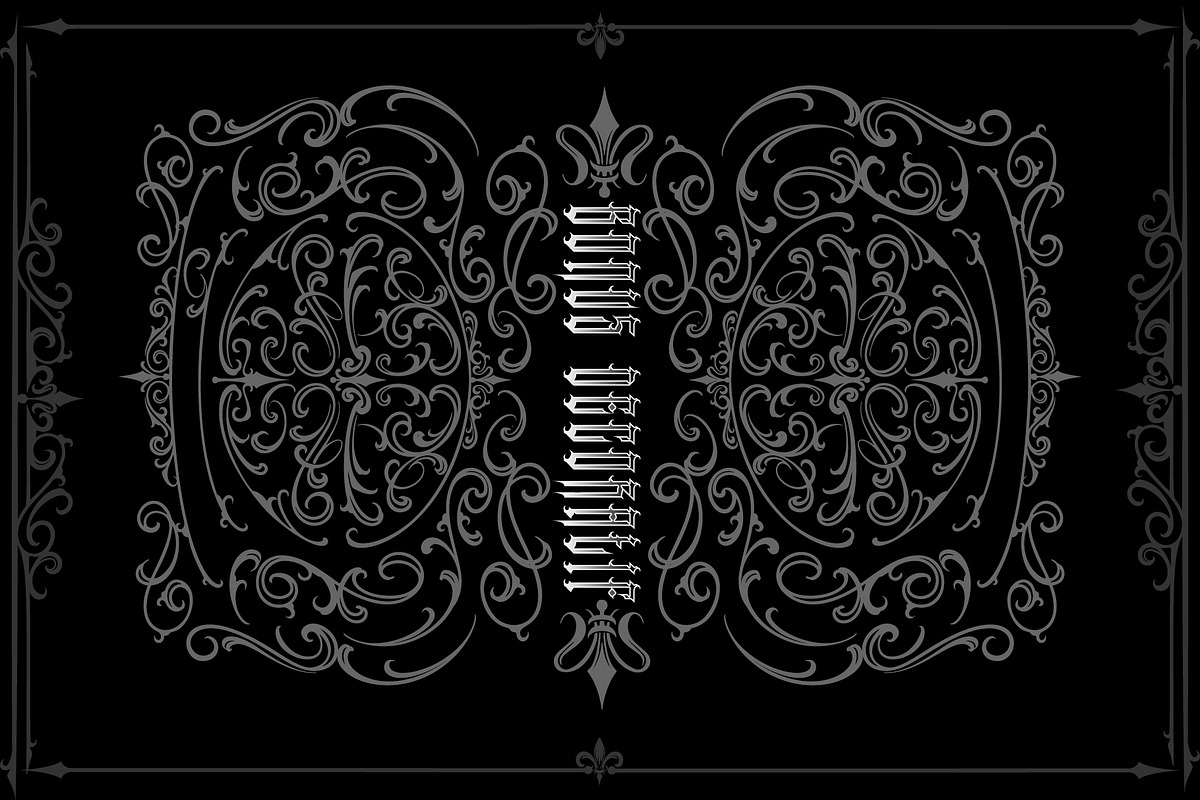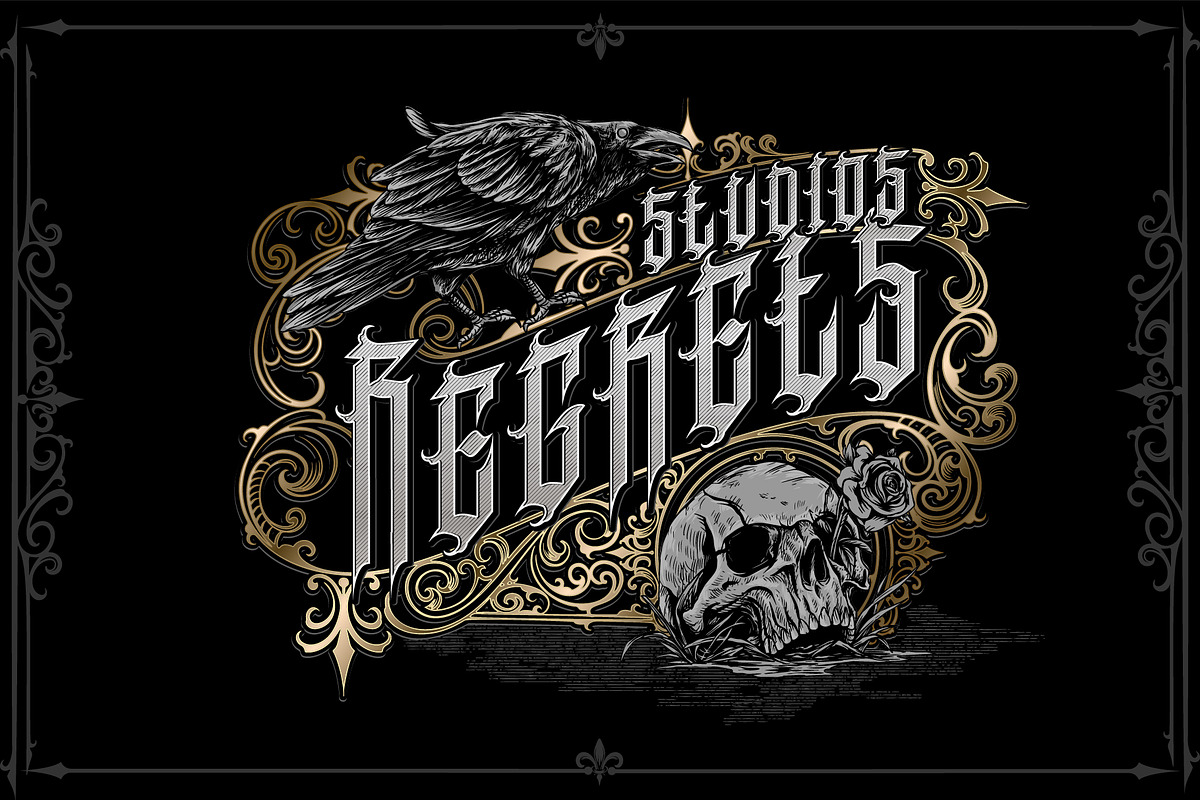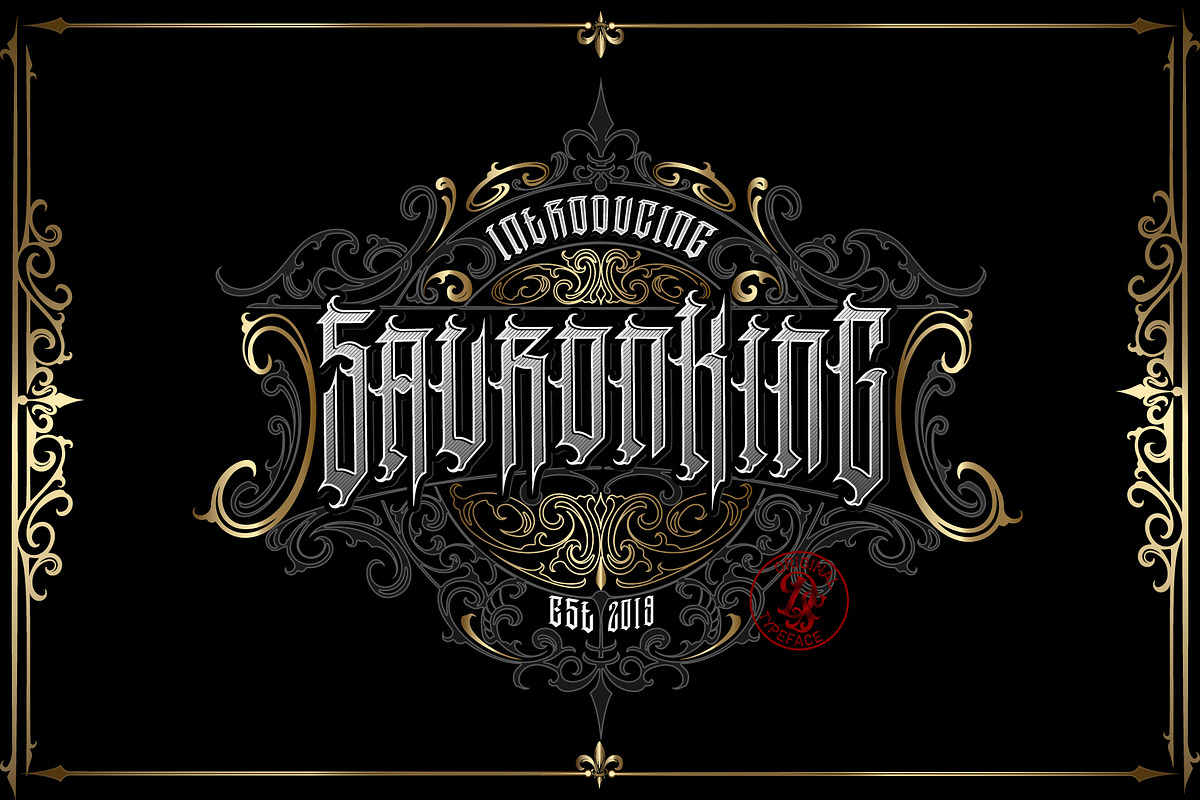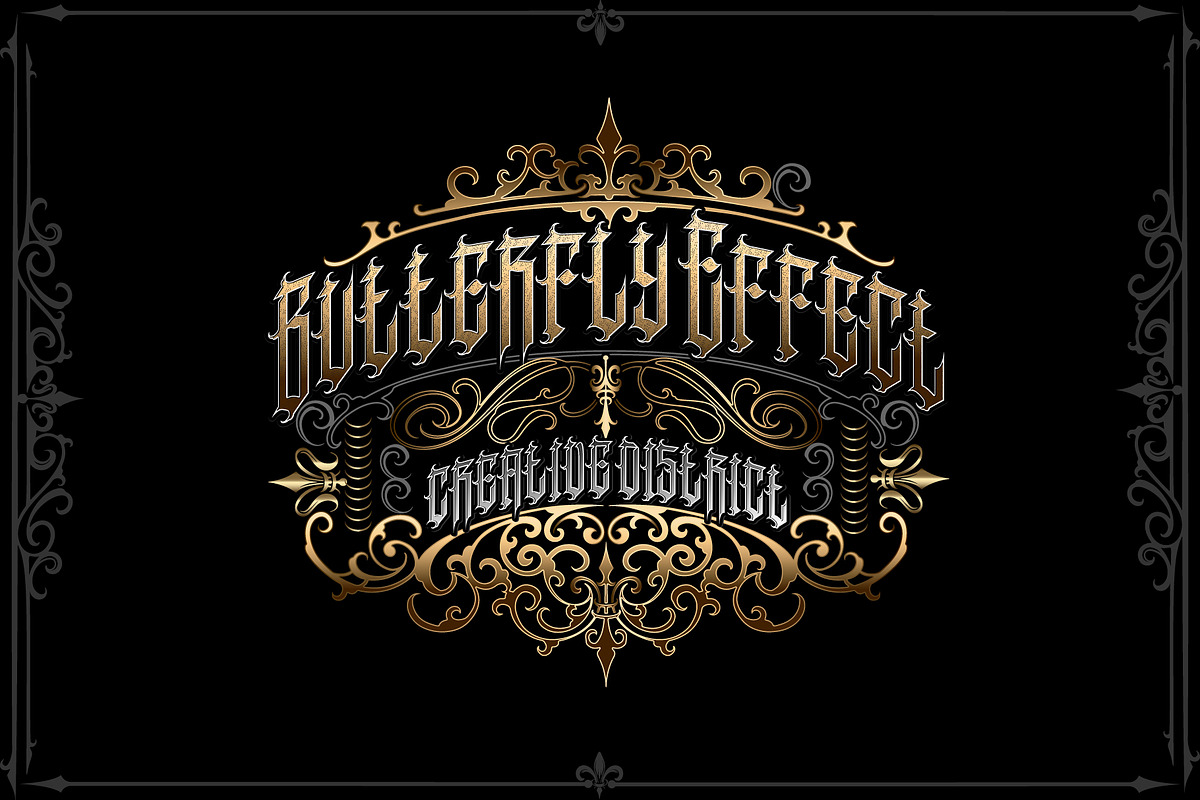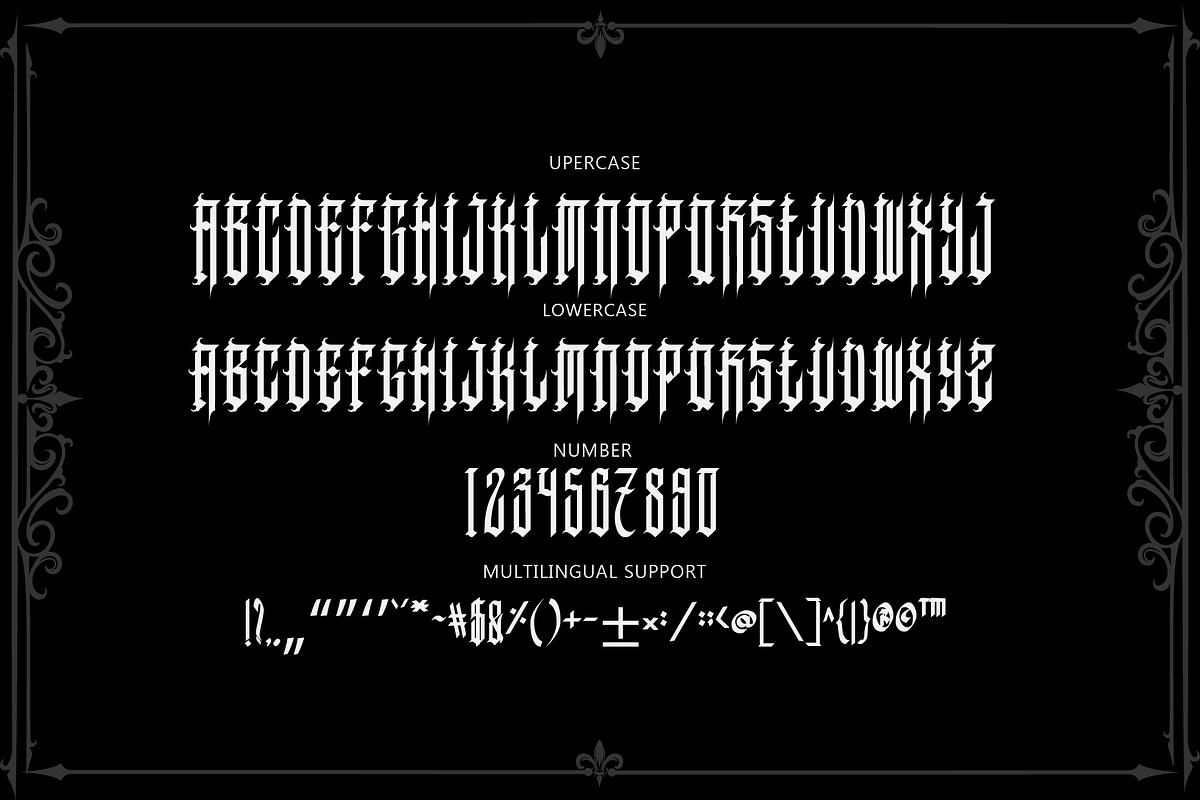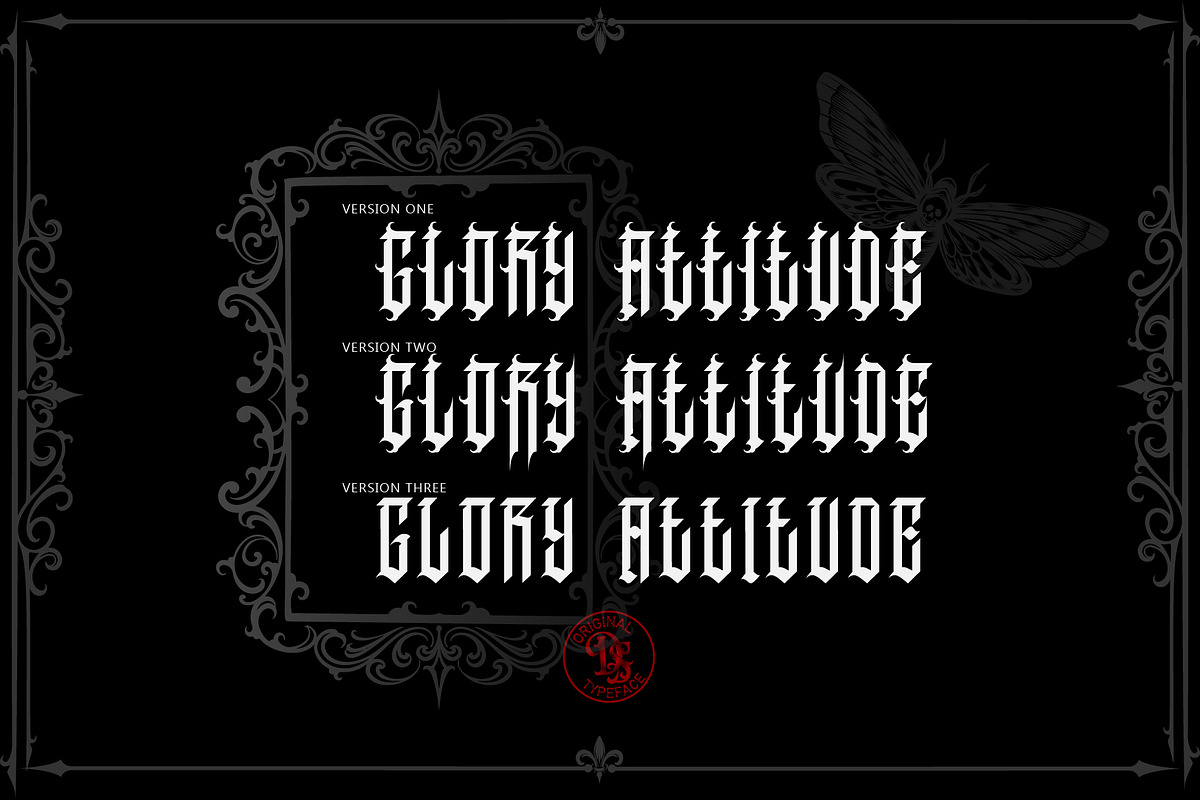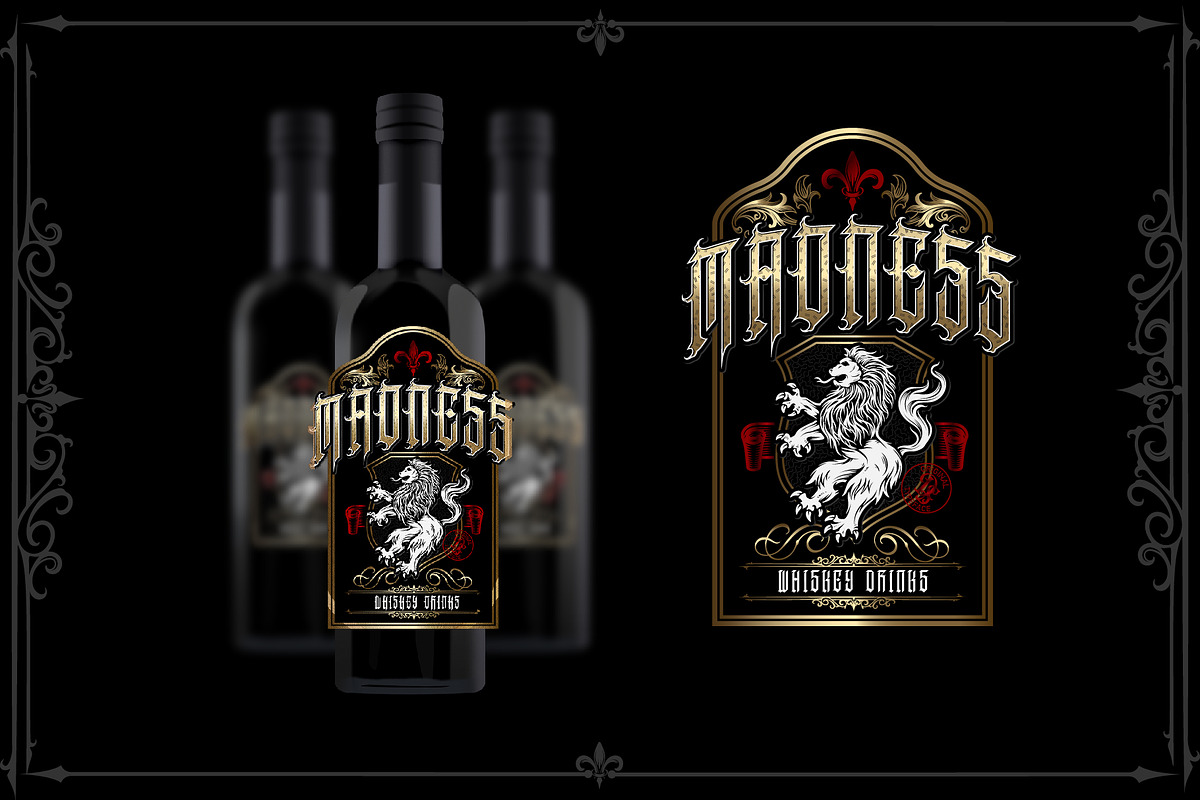
Sauronking + Decorative bonus
Dansdesign Proudly present "Sauronking " modern blackletter font, This font is made with references to various letters that I combine and design with my style.
Sauronking are great and usefull for product logo, poster title, headline, packaging, badge, wedding card logo, clothing brand logo,Vintage design and much more
- Character Set A-Z (Uppercase & Lowercase)